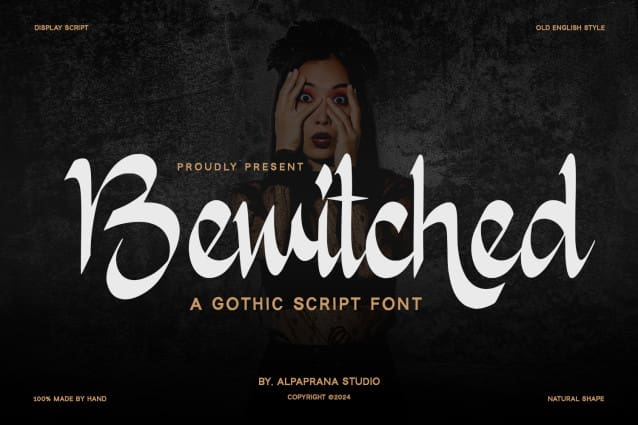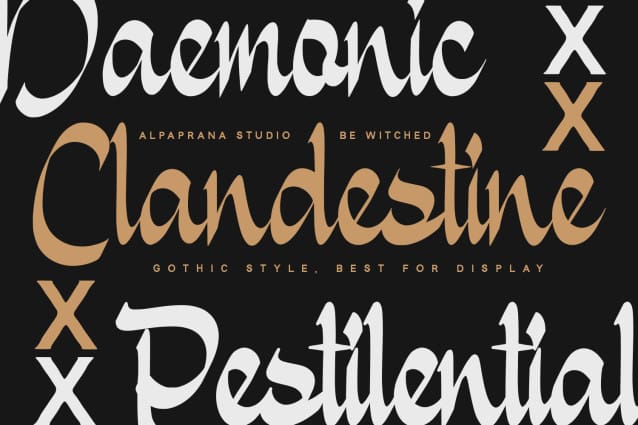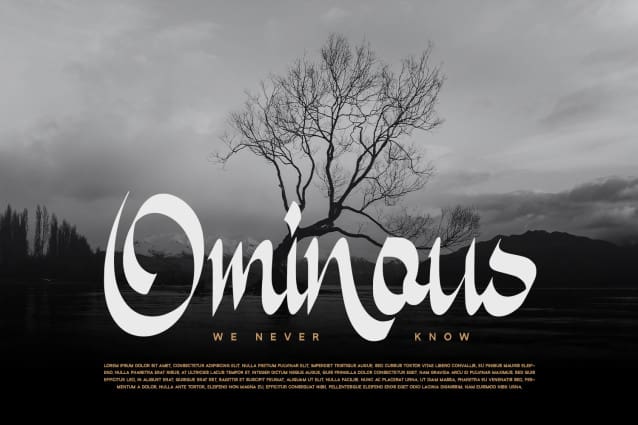
Bewitched Script Font
Bewitched Script Font is a gothic script font with unique and modern feels. It will be perfectly used for Branding, Logo Design, Lettering, Logotype, Clothing, Poster, magazine, packaging, posters, shopping bags, t-shirts, book covers, photography, special events and other design project.